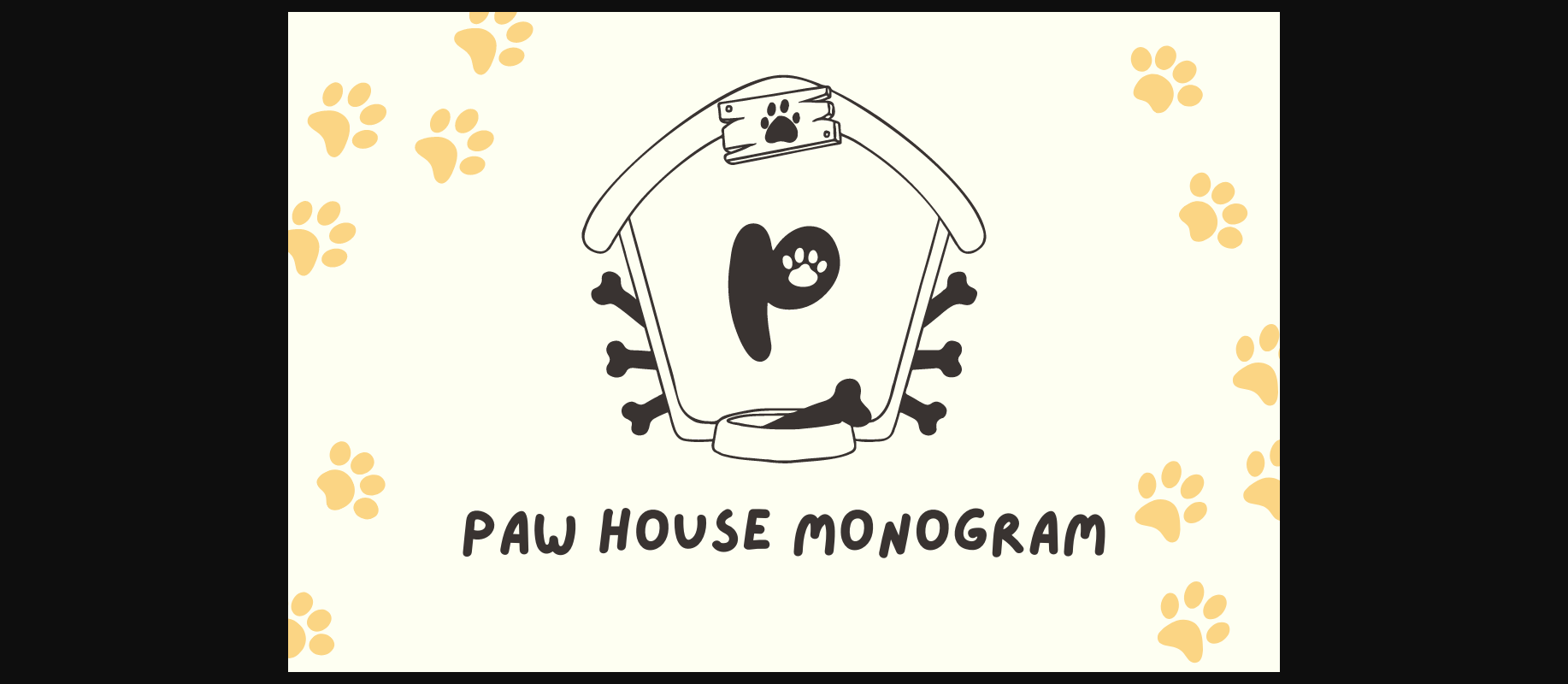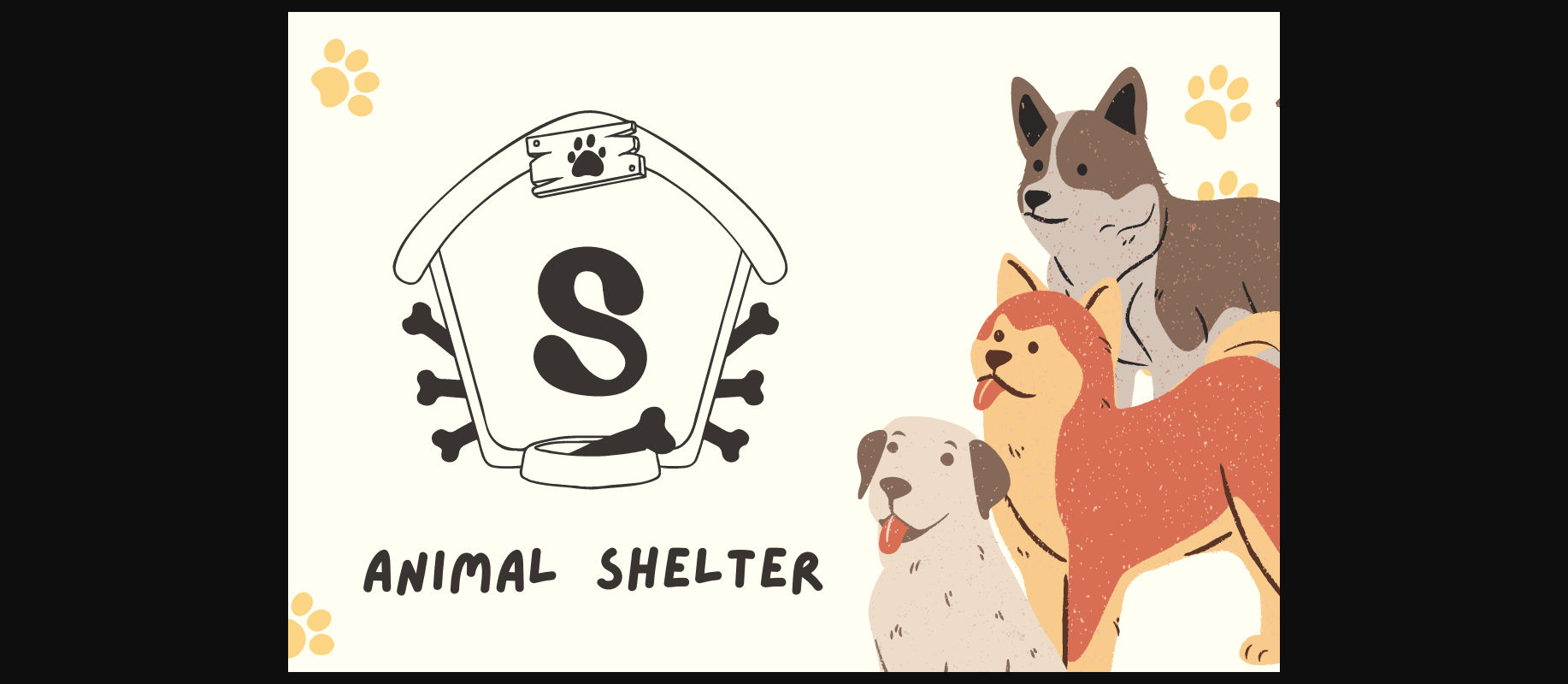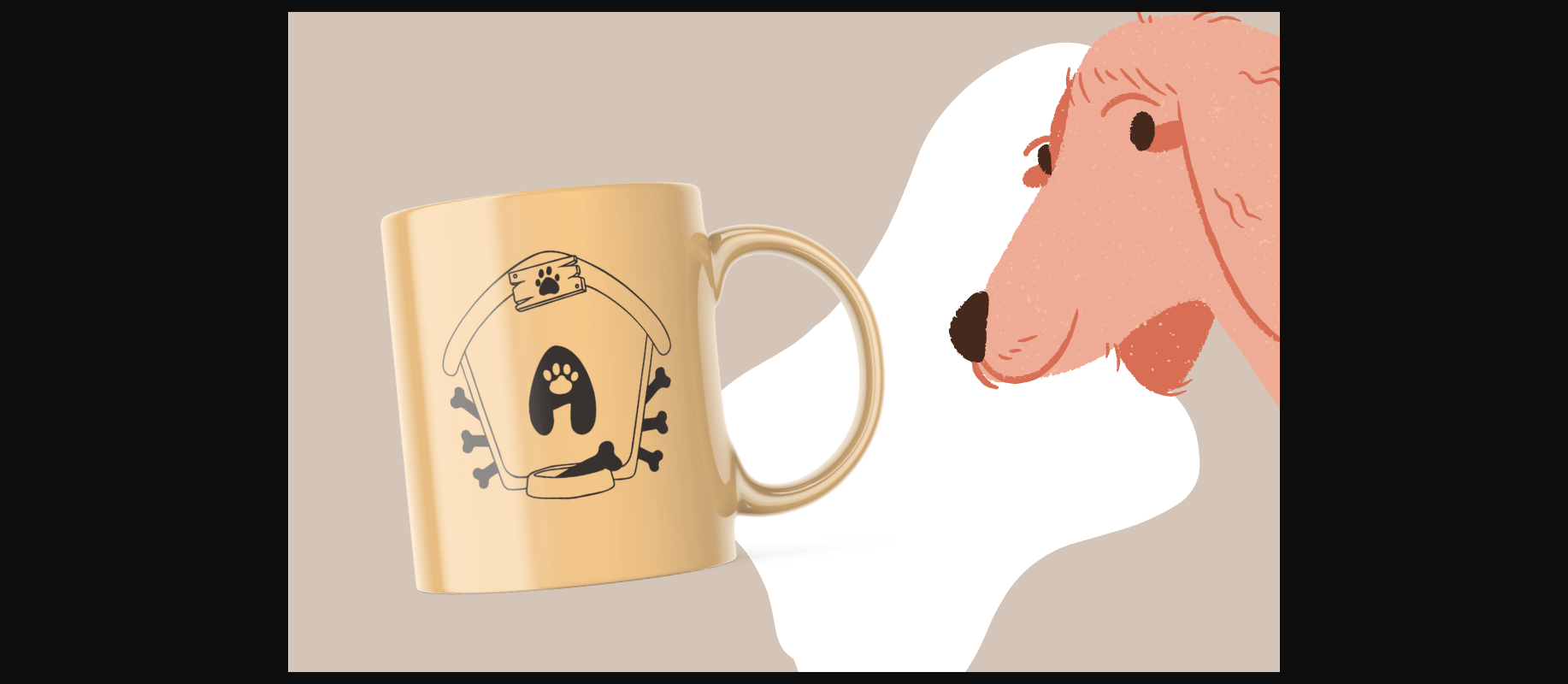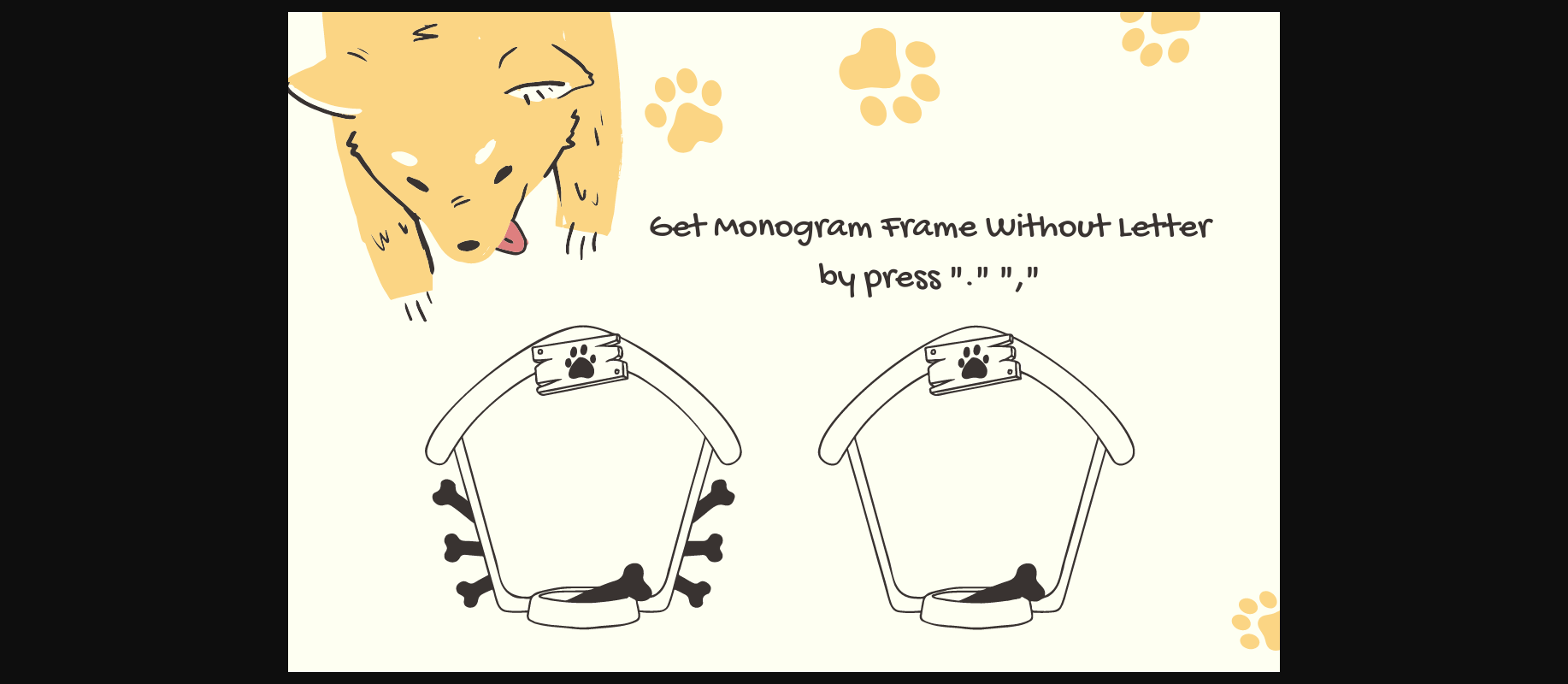
About Paw House Monogram Font
Paw House Monogram is an animal-themed decorative font. Fall in love with its cute and lovely look and use it on your special pet or animal products, business designs, logos, branding, social media posts, and wedding cards.